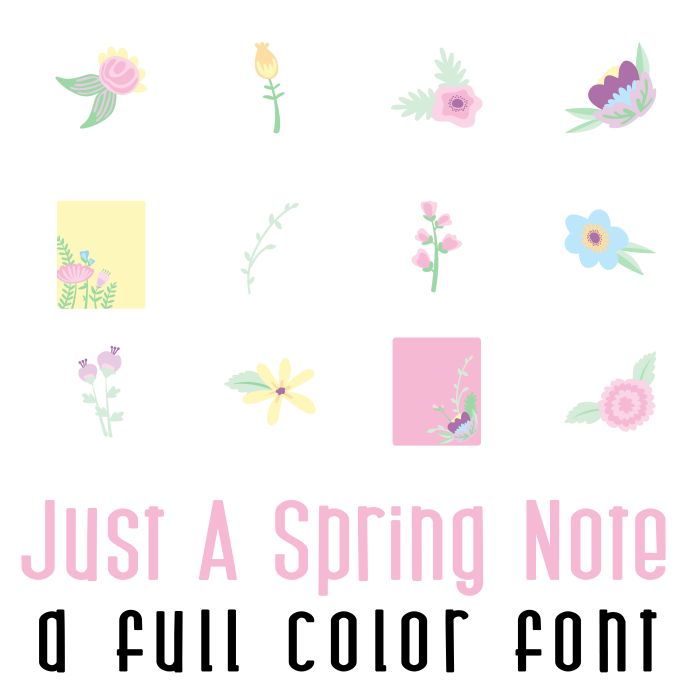
This adorable full-color doodlebat font features 26 beautiful spring floral journaling elements. Perfect for cards, crafts, gifts, decor, scrapbook pages, planner stickers, and more!